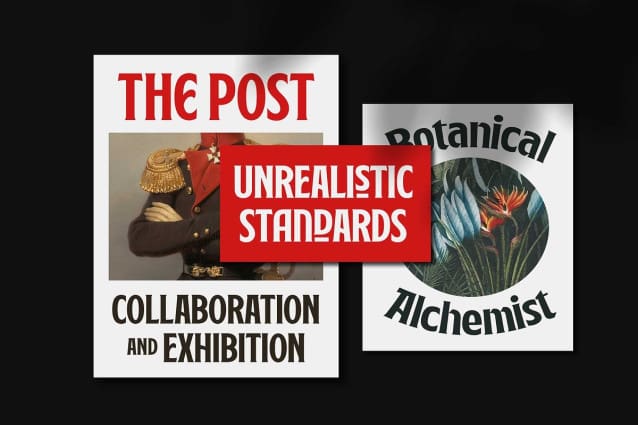
Justinas Font
Justinas Font is a bold display serif, perfect for headlines. With its condensed design and sharp edges, it brings elegance and strength to your designs.
Justinas combines blackletter style with vintage charm, giving it a classy look suitable for various purposes. It’s equipped with stylistic alternates to mix and match, adding extra flair to make your designs stand out!